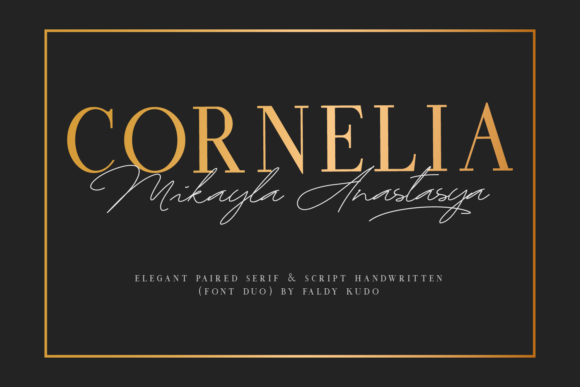
Introducing Cornelia Font Duo, a breathtaking combination of luxury script and serif fonts crafted by the talented team at xdCreative. Whether you're designing wedding invitations, stationary art, social media posts, or greeting cards, Cornelia Font Duo has got you covered.
The serif font in this collection adds an elegant touch to any design, while the script font is perfect for adding a contemporary twist. These fonts are specifically designed to contrast and complement each other, creating a unique and stylish look that's sure to impress.
With Cornelia Font Duo, you'll have access to a range of creative possibilities. The script font is perfect for adding a personal touch to your designs, while the serif font can be used to add a touch of sophistication. Plus, both fonts are easy to read, making them a great choice for a wide range of projects.
What's more, these fonts are incredibly versatile. Use them to create stunning logos, branding materials, and even product packaging. Whether you're a professional designer or just starting out, Cornelia Font Duo is the perfect addition to your toolkit.